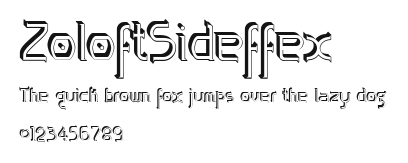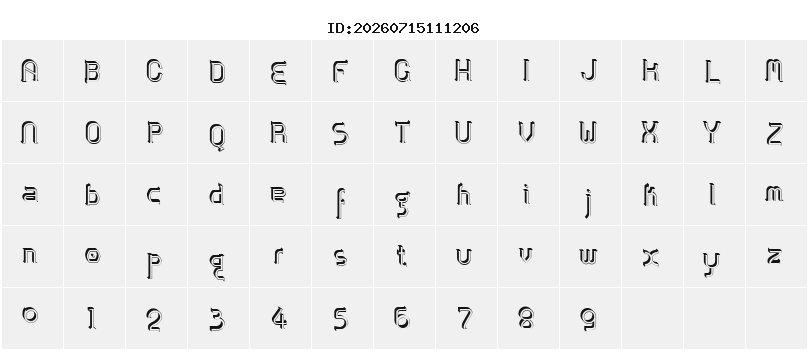
• Font Name: ZoloftSideffex
• Font Style: Roman
• Full Font Name: ZoloftSideffex
• PostScript Name: ZoloftSideffex
• Character Count: 217
About ZoloftSideffex.ttf
ZoloftSideffex.ttf is a modern, elegant sans-serif font designed for ultimate readability and visual harmony. Perfect for branding, headlines, web design, and print materials.